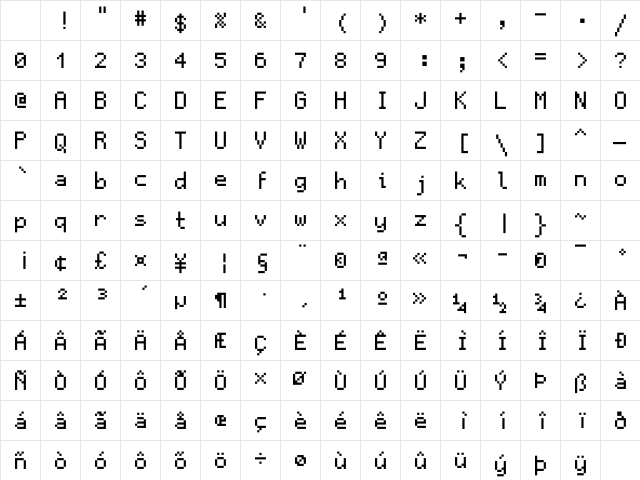
Complete GohuFont NF Medium glyph index. Displaying only characters natively supported by GohuFont NF Medium font.
GohuFont NF is a composed and adaptable typeface that performs quietly and consistently across a wide range of design contexts.